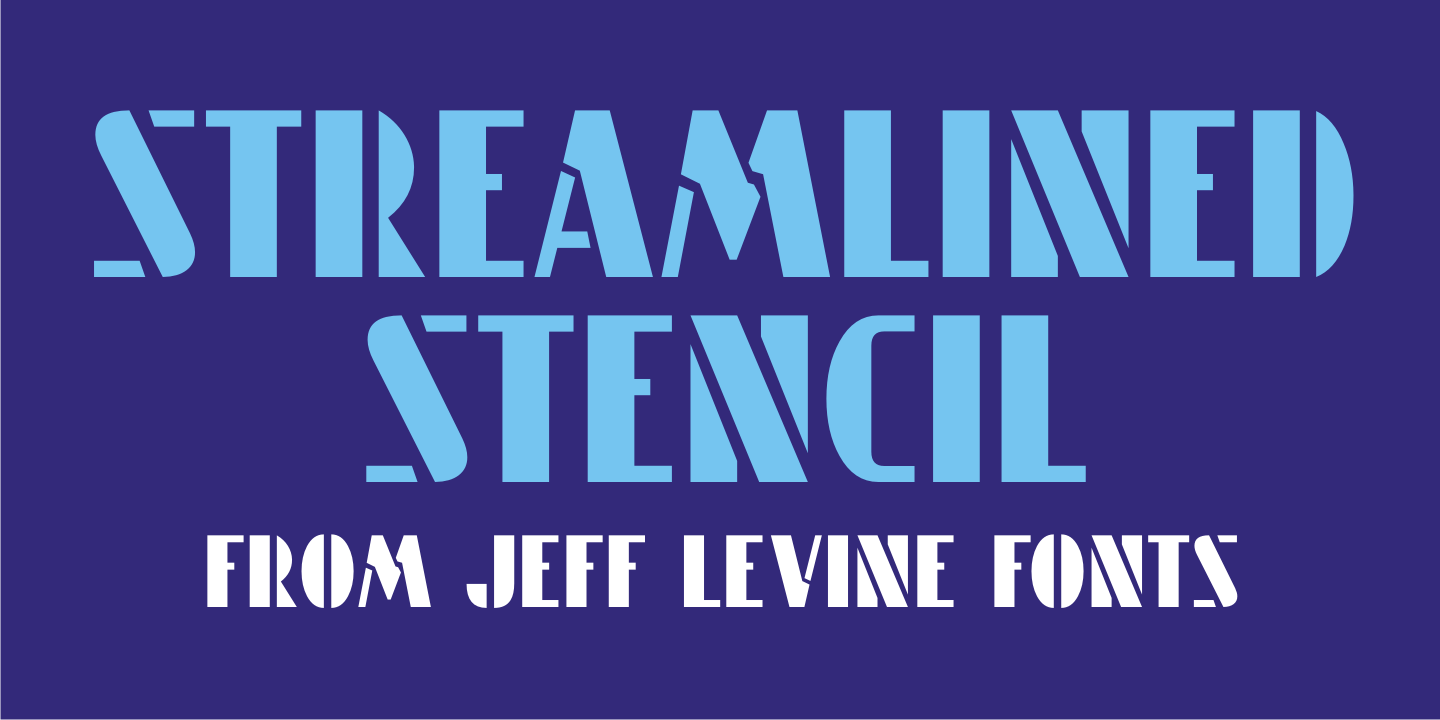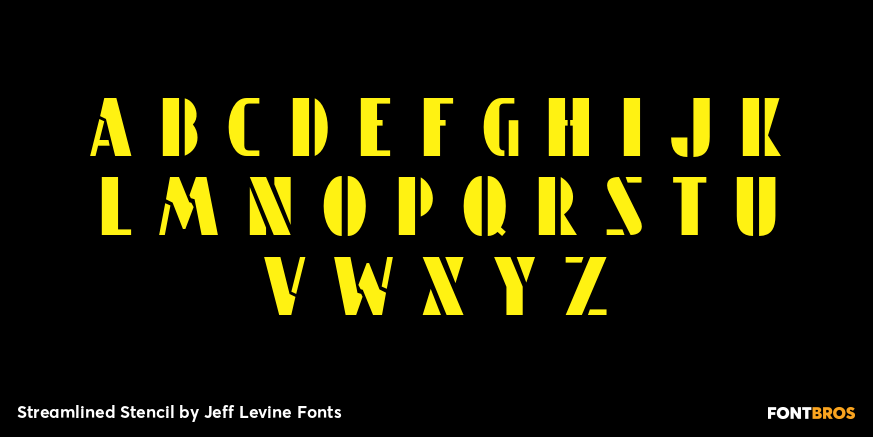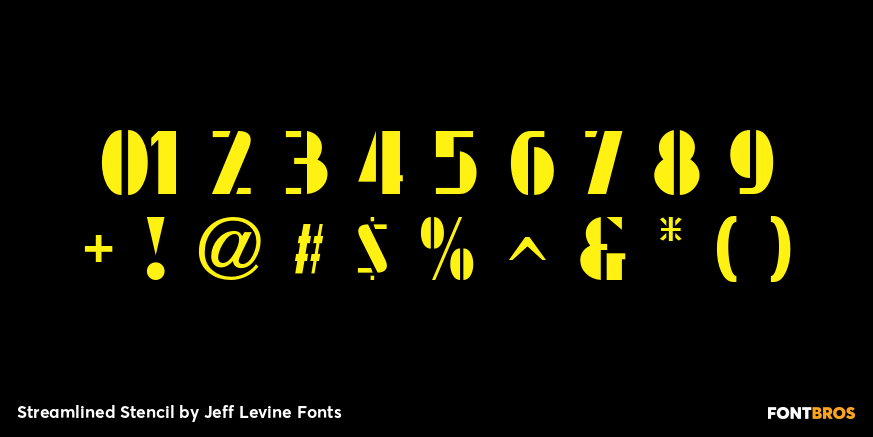
Streamlined Stencil
Streamlined Stencil JNL is based on a photo of an Art Deco era shipping stencil saying 'With Care' which was heavily influenced by the Futura Black style of lettering.
The image was seen in the Steven Heller-Louise Fili book 'Stencil Type' (published by Thames and Hudson).